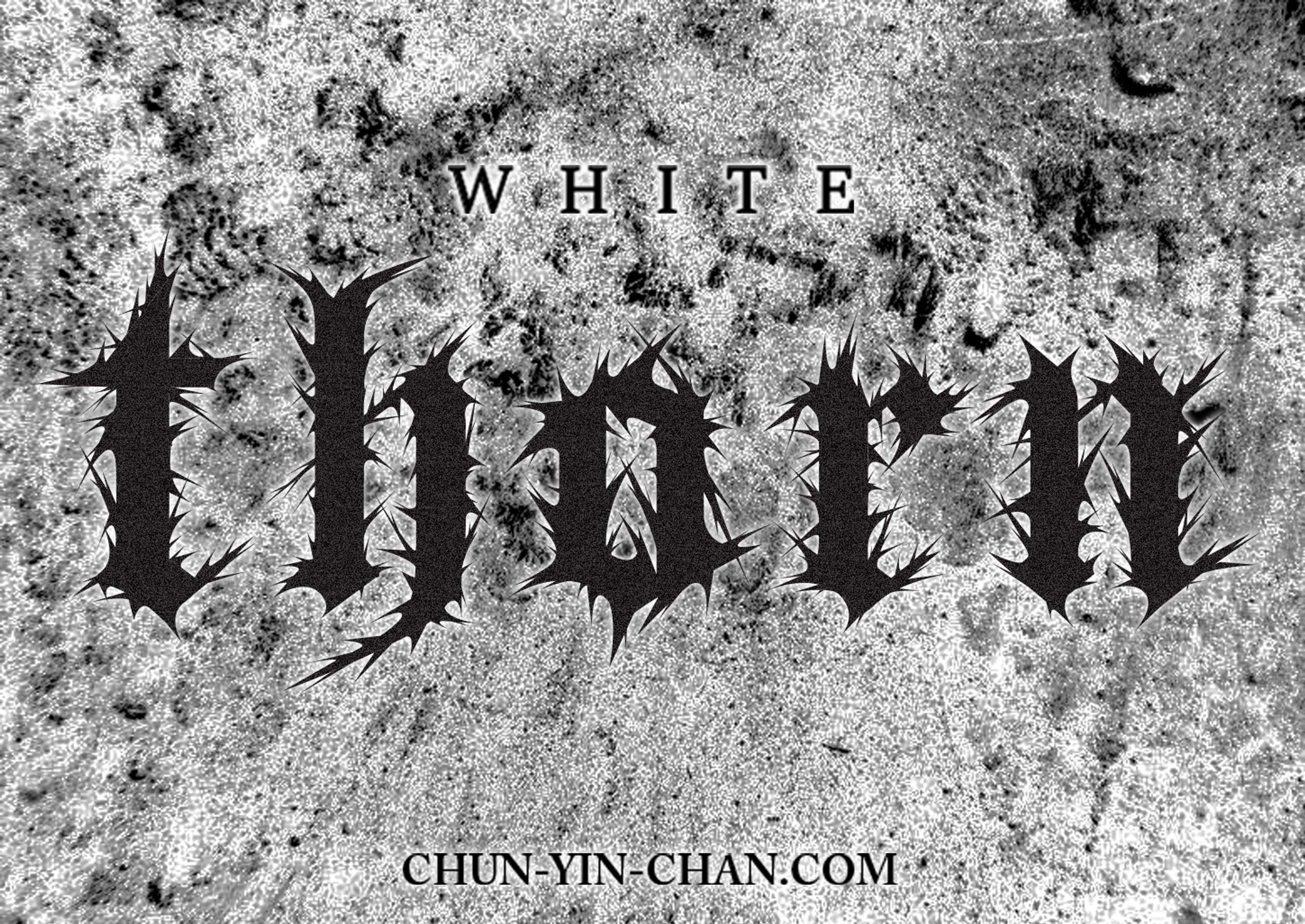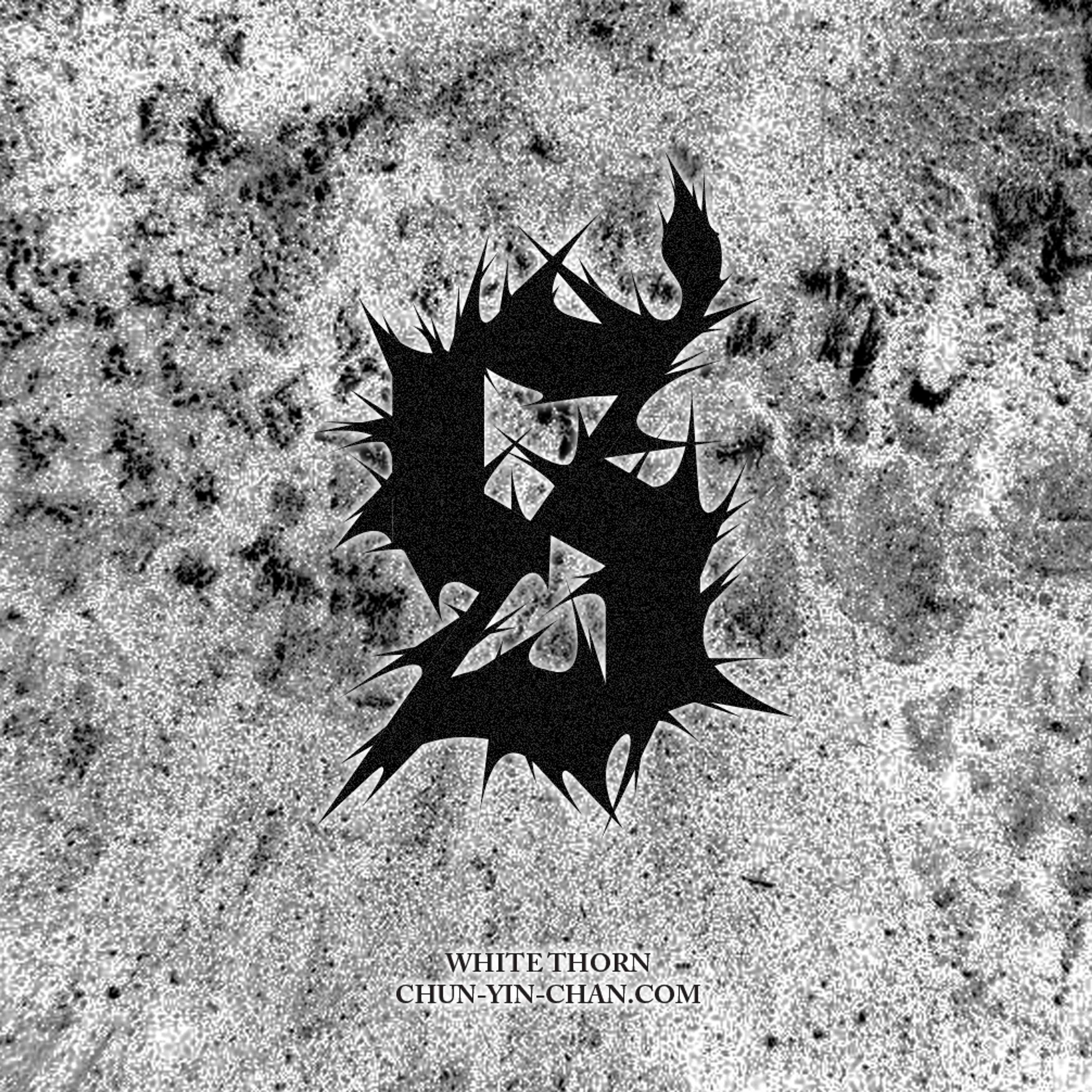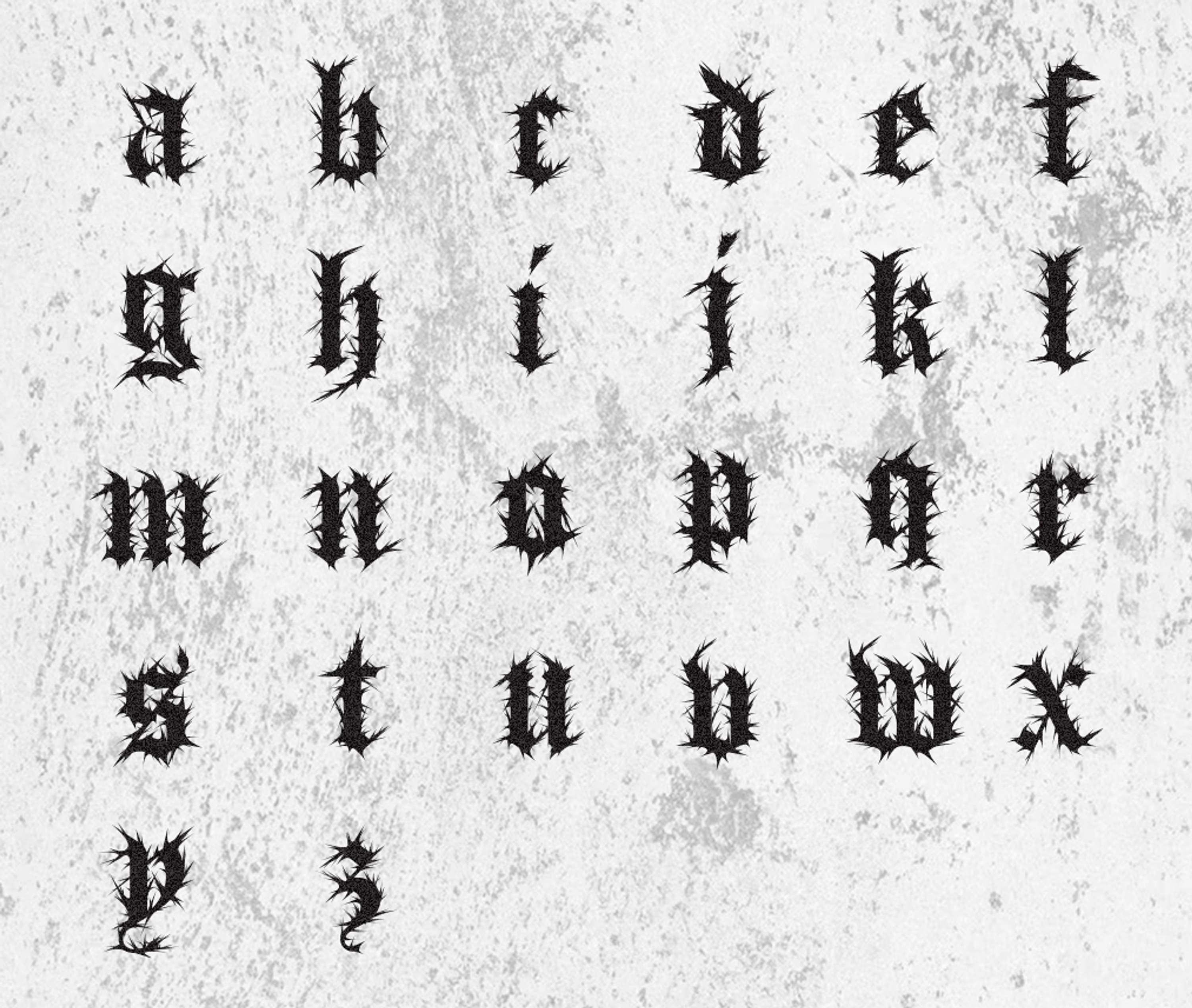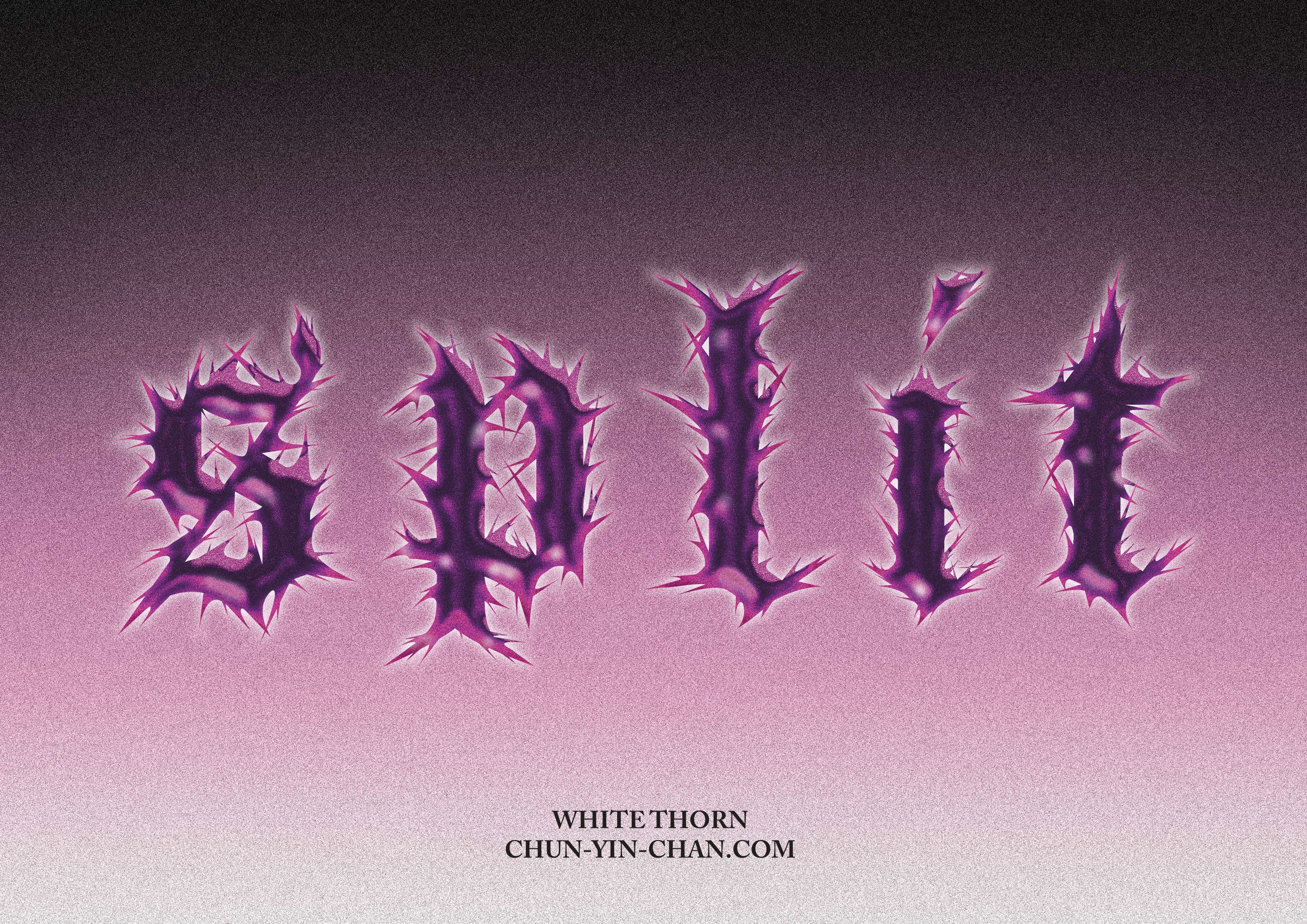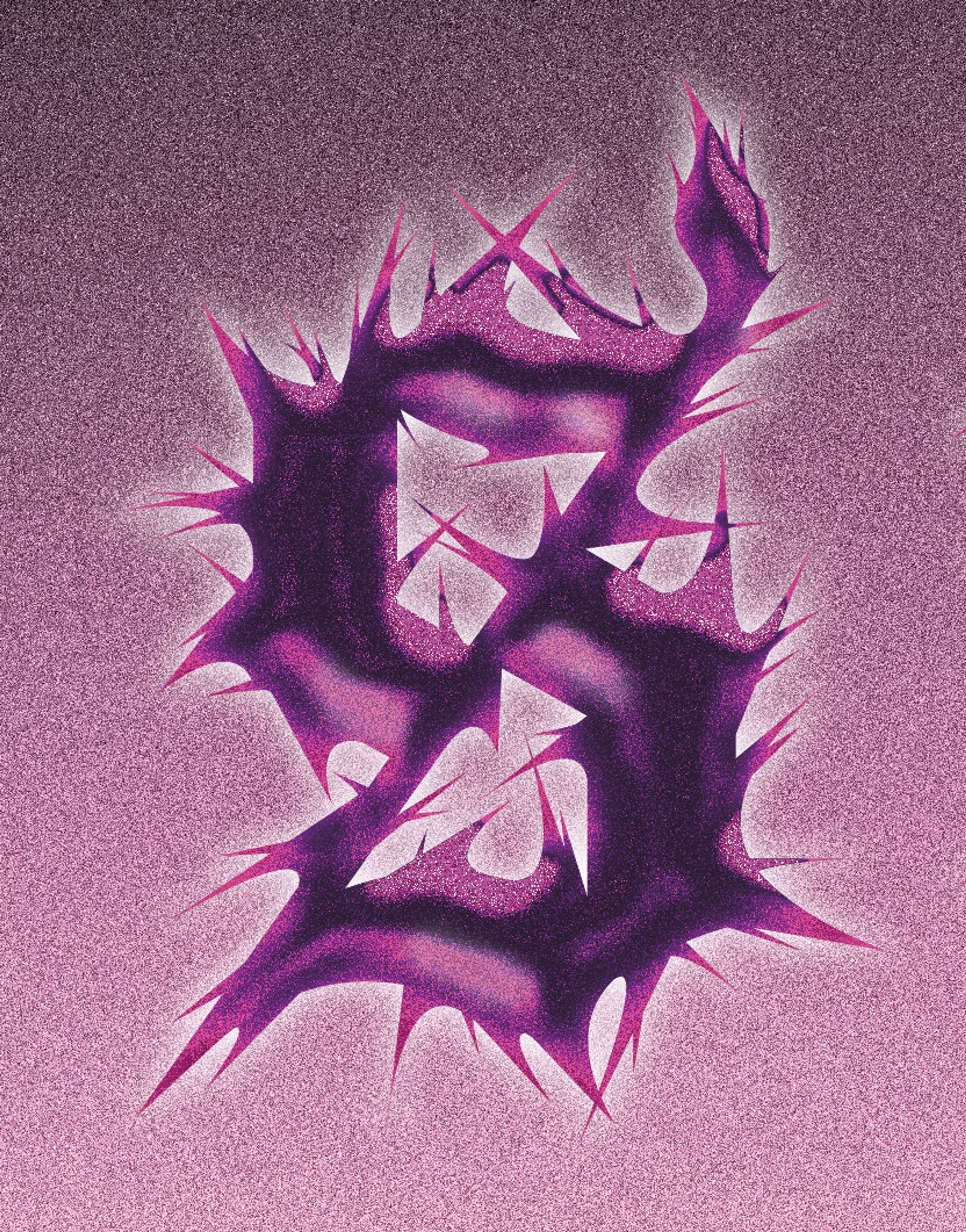
White Thorn Fonts Design Project
Introducing "WhiteThorn," a modern and bold font design that seamlessly blends Old English lettering with a sleek and edgy aesthetic. The lowercase Gothic script is accentuated with a modern black metal spike design, creating a unique and visually striking font that will elevate any design project. Crafted with a strong and defined structure, "WhiteThorn" boasts a thin, spiky outline that gives it a distinct and eye-catching look. Available in OTF, TTF, and WOFF formats, this font is versatile and easy to use across a range of design mediums. Whether you're designing product labels, tattoos, badges, logos, poster titles, or any other modern design, "WhiteThorn" is the perfect font choice to make a bold statement. With its seamless blend of traditional and contemporary elements, this font is sure to catch the eye and make a lasting impression.
White Thorn Fonts Design Project by Chun-Yin Chan